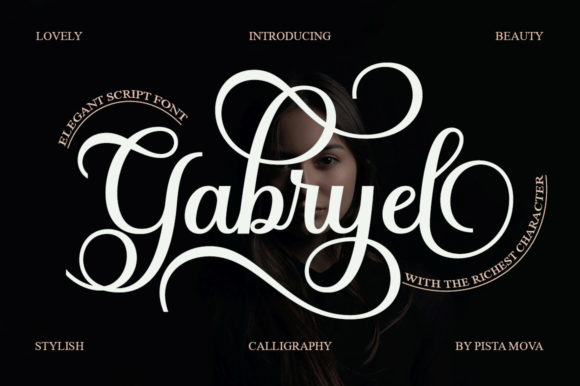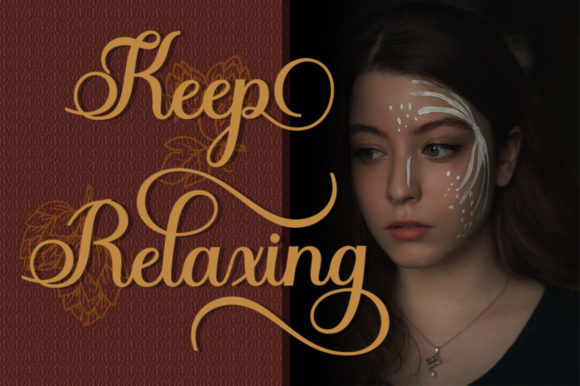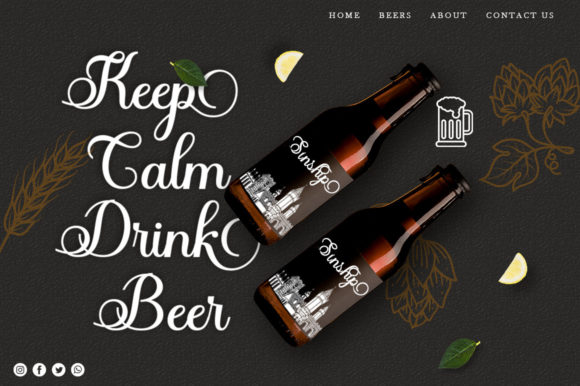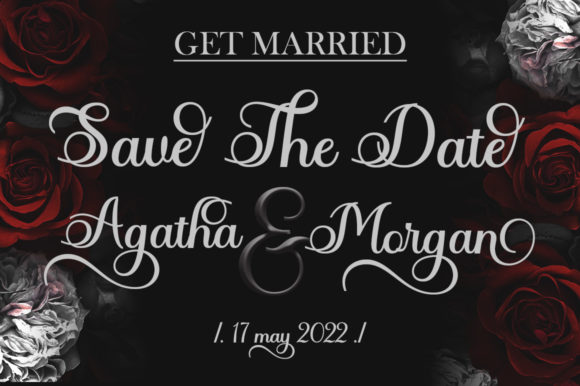
Gabryel Font
About Gabryel Font
Gabryel is a gorgeous and delicate script font. Whether you’re using it for crafts, digital design, presentations, or making greeting cards, this font has the potential to become your favorite go-to font, no matter the occasion!